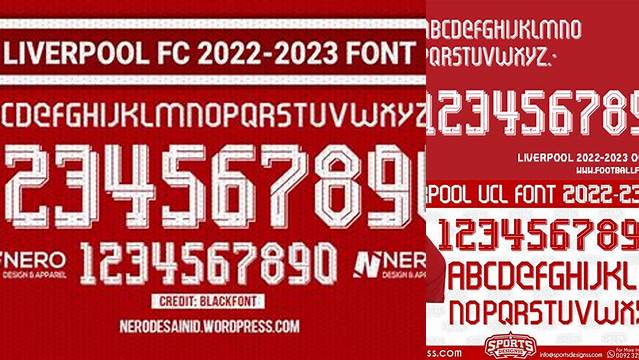
Hey guys! Are you looking for that perfect Liverpool font to spice up your designs? Whether you're creating fan art, designing a website, or just want to show off your support for the Reds, having the right font is key. In this article, we’re diving deep into the world of Liverpool fonts, specifically focusing on the 2023-24 season font and where you can snag it for free. Let's get started!
Understanding the Liverpool Font
The official Liverpool font is more than just a typeface; it's a symbol of the club's identity and heritage. Using the right font can add authenticity and flair to your projects. But what exactly makes the Liverpool font so special? And why should you care about having it in your design arsenal?
What Makes the Liverpool Font Unique?
The Liverpool font isn't just another typeface; it’s a carefully crafted design that embodies the spirit and history of the club. It's typically a bold, sans-serif font with distinctive characteristics that set it apart. Think strong lines, a modern feel, and a touch of class. This font is designed to be highly legible while maintaining a powerful visual impact, making it perfect for everything from jerseys to marketing materials.
Often, the font includes subtle details that resonate with the club's brand. This could be in the form of uniquely shaped characters or specific kerning adjustments that create a cohesive and recognizable look. When you use the Liverpool font, you’re not just adding text; you’re adding a piece of the club’s identity to your design.
Why Use the Official Liverpool Font?
Using the official Liverpool font can significantly elevate the quality and authenticity of your designs. Imagine creating a banner or a social media post for a Liverpool match. Using a generic font just won’t cut it. The official font adds a layer of professionalism and shows that you've paid attention to detail. It connects your work directly to the club and resonates with fans on a deeper level.
Moreover, using the correct font helps maintain brand consistency. Whether you’re designing merchandise, website content, or even personal projects, staying true to the club’s visual identity reinforces the message and strengthens the connection with the audience. It's all about creating a cohesive and recognizable brand experience.
Font Identification Tools
If you have an image of the Liverpool font but can't identify it, try using font identification tools. Websites like WhatTheFont! and Font Matcherator allow you to upload an image, and they’ll suggest similar fonts from their database. While they might not find the exact match, they can point you in the right direction.
Use the font consistently across all platforms and media.
Brand Guidelines